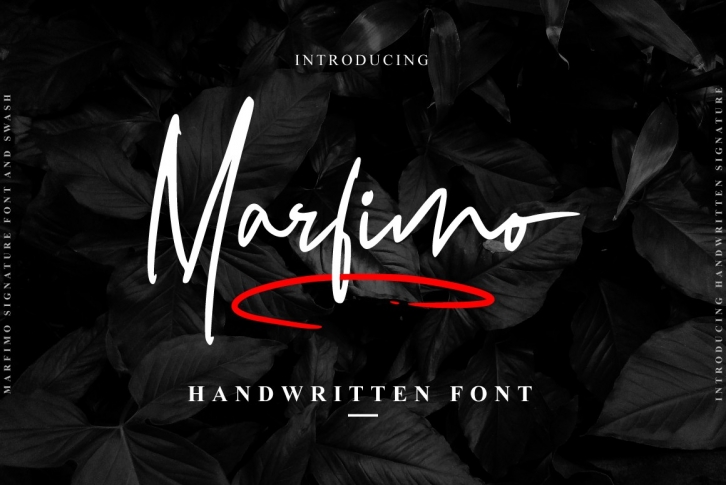
Marfimo Signature is a great font that was designed by pointlab. Imagine the amount of combinations you can create using this font! The archive is 15.93 MB and it was released on June 28, 2019. Marfimo Signature looks beautiful on wedding invitations, greeting cards, logos, posters, labels, t-shirt designs, logos, business cards and is perfect for use in ink or watercolor works, fashion, magazines, packaging and food menus, children's books and more!